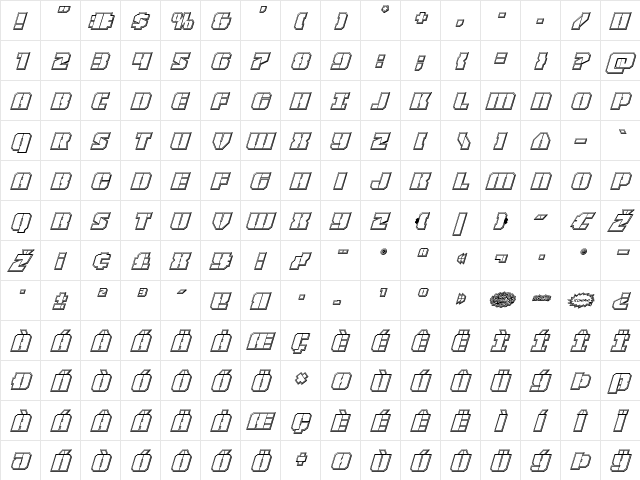
Warp Thruster Engraved Italic Italic
Design Context for Warp Thruster Engraved Italic Typeface
Warp Thruster Engraved Italic is built around its visual character rather than neutral utility — its distinctive forms are designed to make an impression at display sizes. Its italic angle brings a sense of urgency and motion to the letterforms.
Font Pairing: Pair with a clean neutral sans-serif for body copy to let Warp Thruster Engraved Italic's character lead without overwhelming the composition.
Pro Tip: Use Warp Thruster Engraved Italic exclusively at display sizes — it was designed to be seen, not read at length. Let a neutral companion handle body copy.